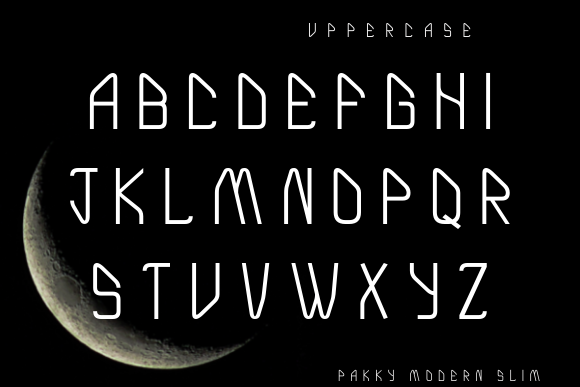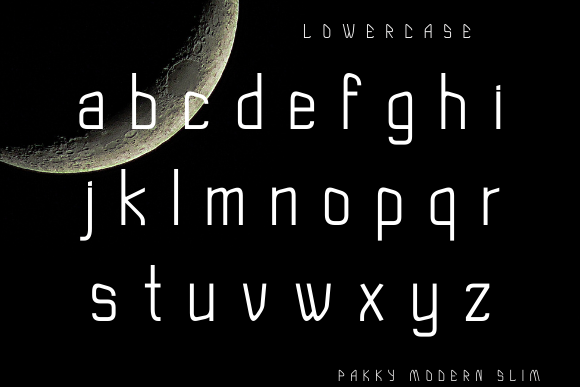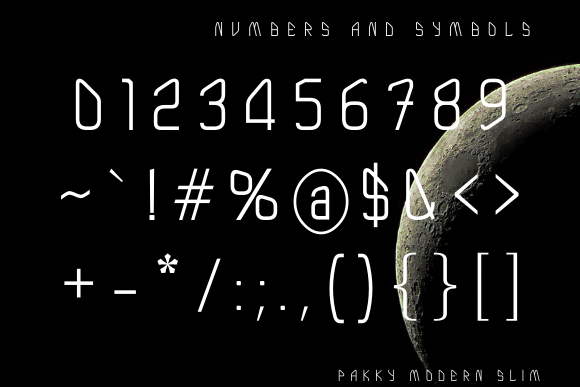
Introduction to Pakky Modern Slim Font
Have you ever stared at a blank page, waiting for inspiration to strike? For designers, those moments can be both exhilarating and intimidating. But what if you had the perfect tool to spark your creativity and bring your ideas to life? Enter the Pakky Modern Slim Font, a sleek and modern sans serif font that’s about to become your new go-to design resource.
With its unique and slim design, this font is perfect for adding a touch of personality to your creative projects. Whether you’re working on a digital design, a presentation, or even a handmade card, the Pakky Modern Slim Font is a high-quality addition to your design arsenal. And the best part? It’s available for free download, making it an accessible and valuable resource for designers of all levels.
What sets the Pakky Modern Slim Font apart is its versatility and ease of use. Its transparent background makes it easy to layer and combine with other elements, giving you endless possibilities for creative expression. So why wait? Download the Pakky Modern Slim Font today and discover a whole new world of design possibilities.
Key Features of Pakky Modern Slim Font
- High-quality design resource ideal for creative projects, offering a unique and modern look.
- Characteristics include a transparent background and a sleek, minimalist design, perfect for modern designs and creative projects.
- The font is available in a single weight, making it easy to use in a variety of contexts without worrying about multiple font weights.
- Pakky Modern Slim Font is designed to be highly legible, making it suitable for body text and titles in various creative projects.
Honest Review: Pakky Modern Slim Font
I recently had the chance to work with the Pakky Modern Slim Font and I must say it’s been a game-changer for my creative project. As a designer, I’m always on the lookout for high-quality design resources that can elevate my work, and this font definitely fits the bill.
Here are some things that work well with the Pakky Modern Slim Font: ✨
- High-quality design: The font is crisp, clean, and has a modern aesthetic that works well for a variety of creative projects.
However, there are some limitations to keep in mind: ⚠️
- Limited character set: The font doesn’t come with a comprehensive character set, which may be a limitation for some designers.
- Not suitable for all projects: While the font works well for modern and minimalist designs, it may not be the best choice for more traditional or elaborate projects.
Overall, I’m impressed with the Pakky Modern Slim Font and would highly recommend it for designers looking for a high-quality, modern font for their creative projects.
Tips for Getting the Most Out of Pakky Modern Slim Font
For the best results, use the Pakky Modern Slim Font with a transparent background to create a clean and modern design. Experiment with different font sizes and styles to add visual interest to your project. You can also pair the font with other high-quality fonts to create a unique design.
Pakky Modern Slim Font is ideal for creating modern and minimalist designs, such as logos, business cards, and social media graphics. Its sleek and sophisticated design makes it perfect for creative projects that require a touch of elegance and sophistication.